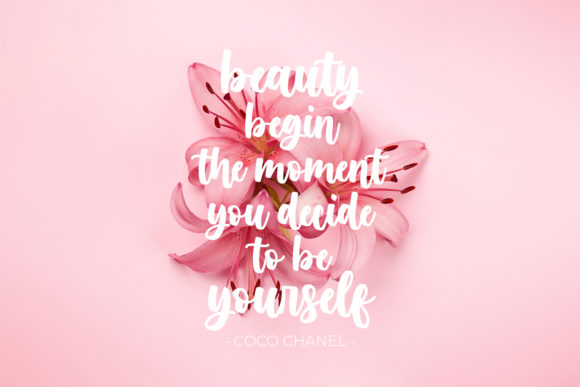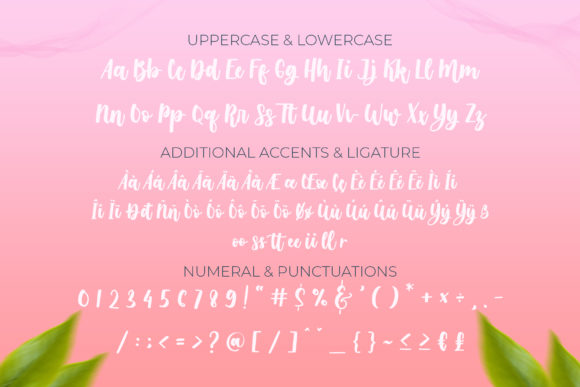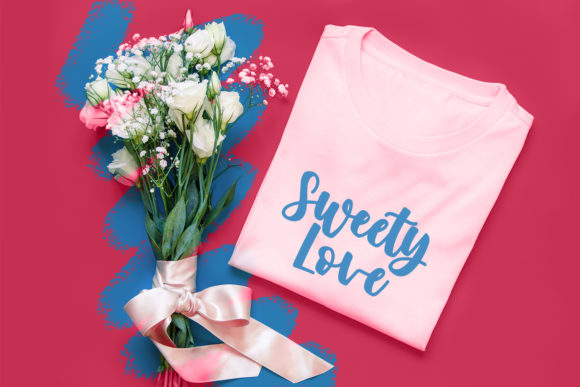
About Morning Sweety Font
Morning Sweety is a romantic Script font with a natural handwritten feel, perfect for any creative design. This handmade font will make sure your design has a beautiful natural touch of detail. It is perfect for any design project as an Invitation, logo, book cover, craft, or any design purposes.